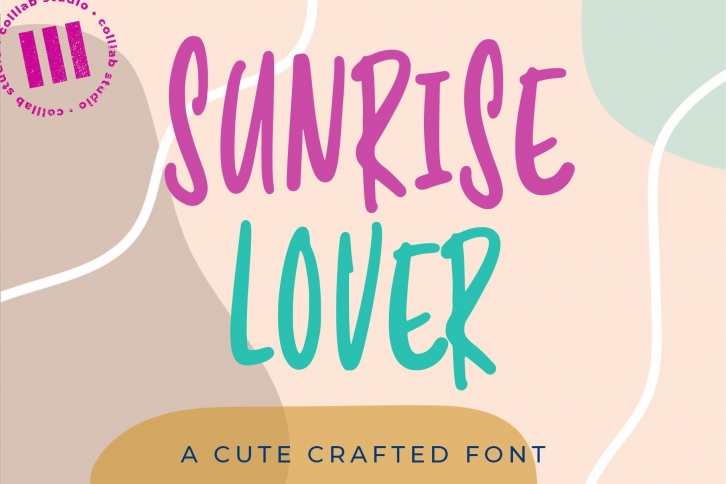
Sunrise Lover is a trendy and unique font with an authentic style. It was designed by colllab studio and it's a great choice for creative people who need such a font. It was released on July 29, 2020 and the file size is 6.38 MB. Sunrise Lover will add an organic vibe to any design idea!